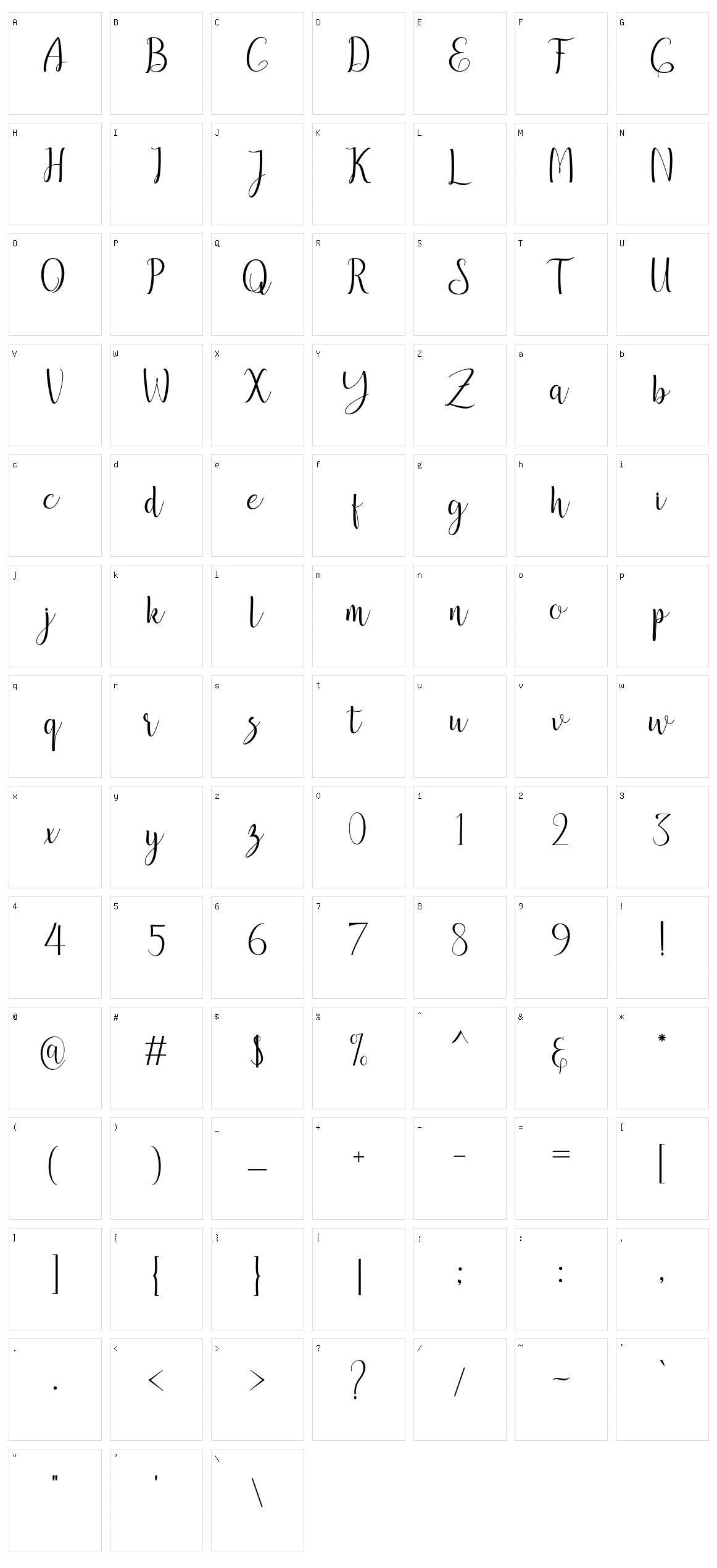
Introducing
Breathaking Script
Breathaking Script a new fresh & modern script with a handmade calligraphy style, Great for Apparel Brand, Logos, printed quotes, invitations, image overlays, greeting cards, product packaging, text headers, any greeting cards, book cover, Painting design style, or any design that needs natural and personal touch & whatever else your imagination holds! and more!!
Breathaking Script come with 620 glyphs. The alternative characters were divided into several Open Type features such as Swash, Stylistic Sets, Stylistic Alternates, Contextual Alternates. The Open Type features can be accessed by using Open Type savvy programs such as Adobe Illustrator, Adobe InDesign, Adobe Photoshop Corel Draw X version, And Microsoft Word. And this Font has given PUA unicode (specially coded fonts). so that all the alternate characters can easily be accessed in full by a craftsman or designer.
Breathaking Script :
Uppercase & Lowercase International Languange & Symbols Support Punctuation & Number PUA Unicode Range Standard Stylistic Alternates Stylistic Set 1-19 Character Variant Contextual.